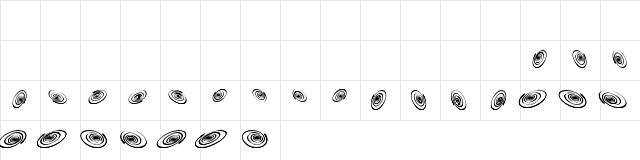
OMEGASwirls Regular
Design Context for OMEGASwirls Typeface
OMEGASwirls is built around its visual character rather than neutral utility — its distinctive forms are designed to make an impression at display sizes.
Font Pairing: Pair with a clean neutral sans-serif for body copy to let OMEGASwirls's character lead without overwhelming the composition.
Pro Tip: Treat OMEGASwirls as the centrepiece of your typographic hierarchy. One strong heading set in a decorative face can carry an entire layout.